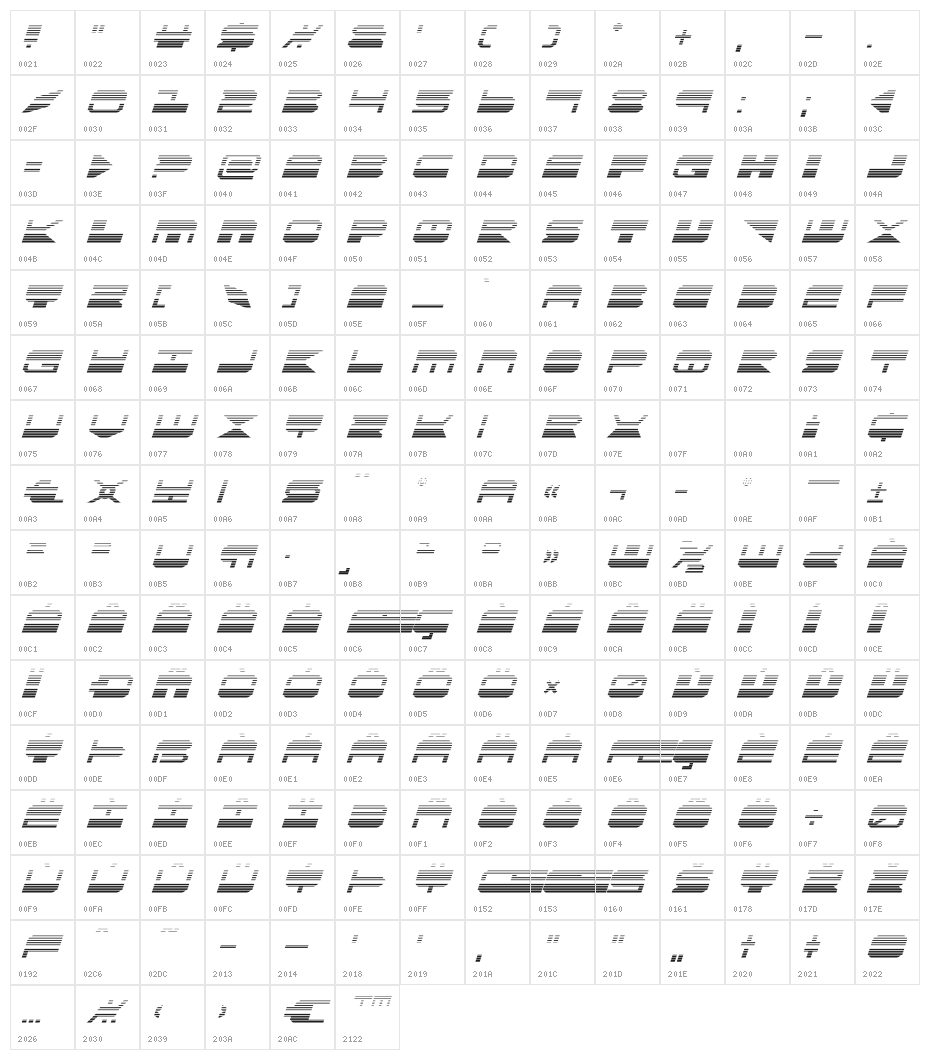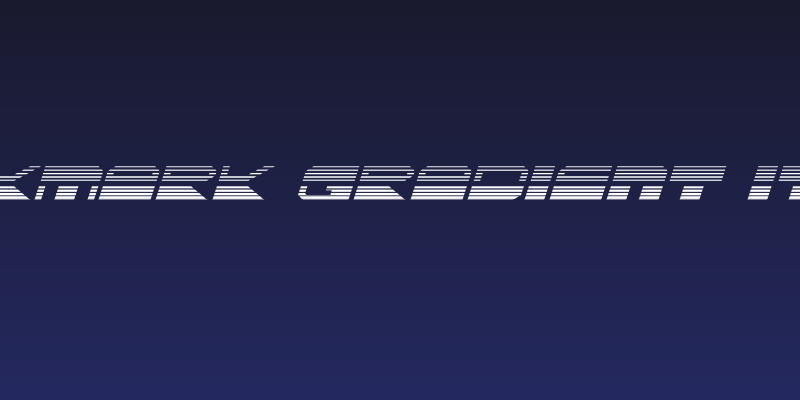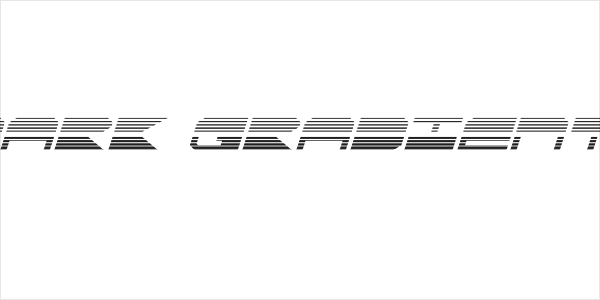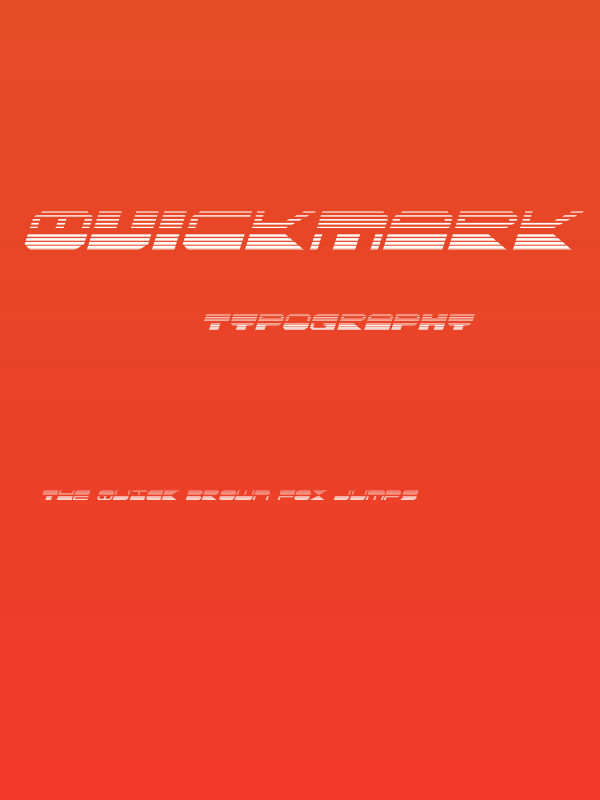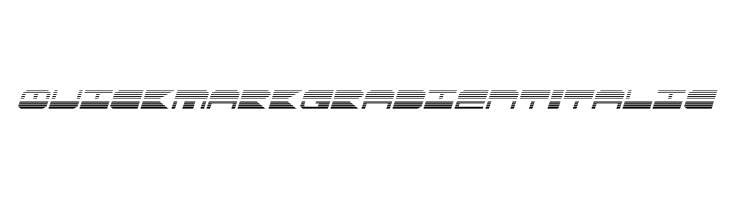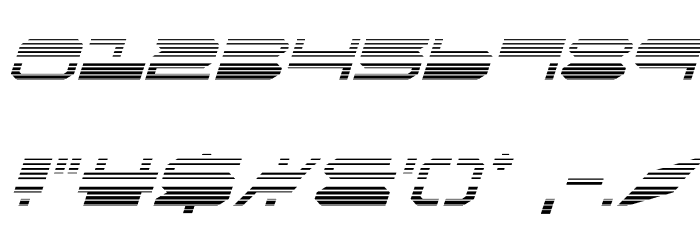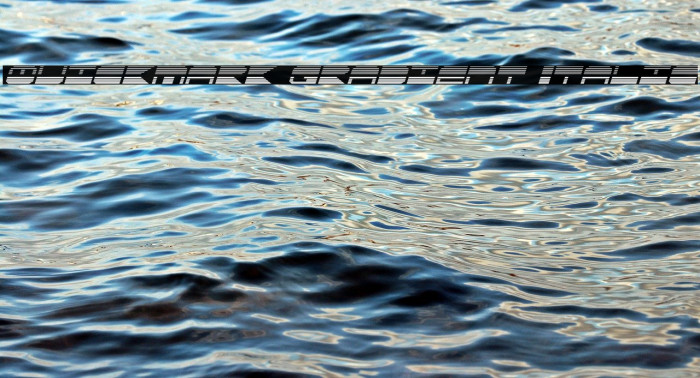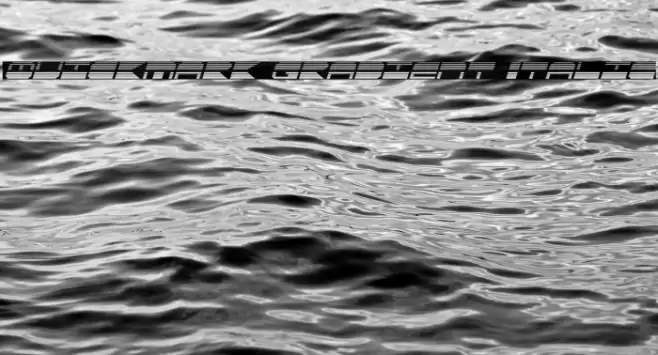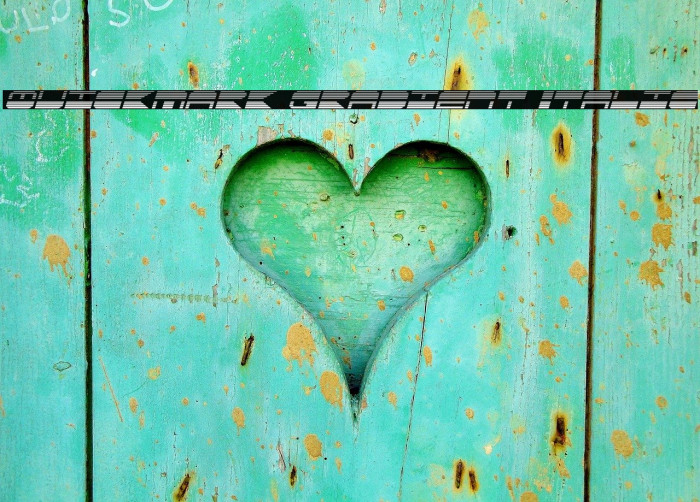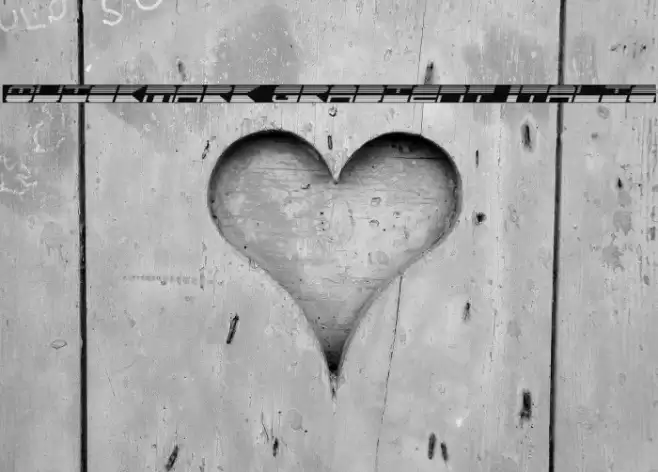
QuickMark Gradient Italic Font
✎ Futuristic
| उपयोग का मामला | Headlines, Logos |
| सुझाए गए प्रोजेक्ट | Ideal for technology branding, sports team logos, futuristic posters, and dynamic web design. |